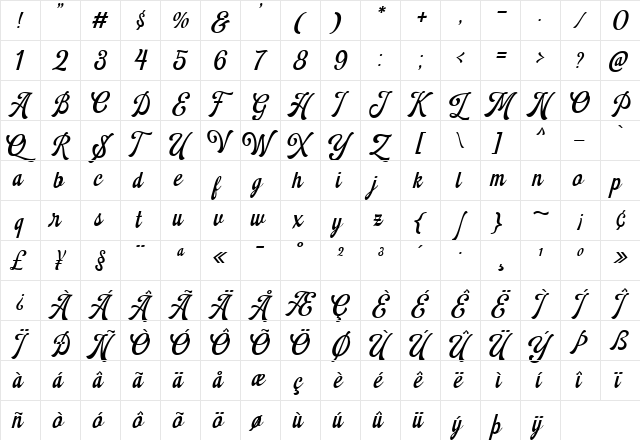
Montheim Regular
| Foundry | Arterfak Project |
| Designer | R A M Z |
Design Context for Montheim Typeface
Montheim is a composed and adaptable typeface that performs quietly and consistently across a wide range of design contexts.